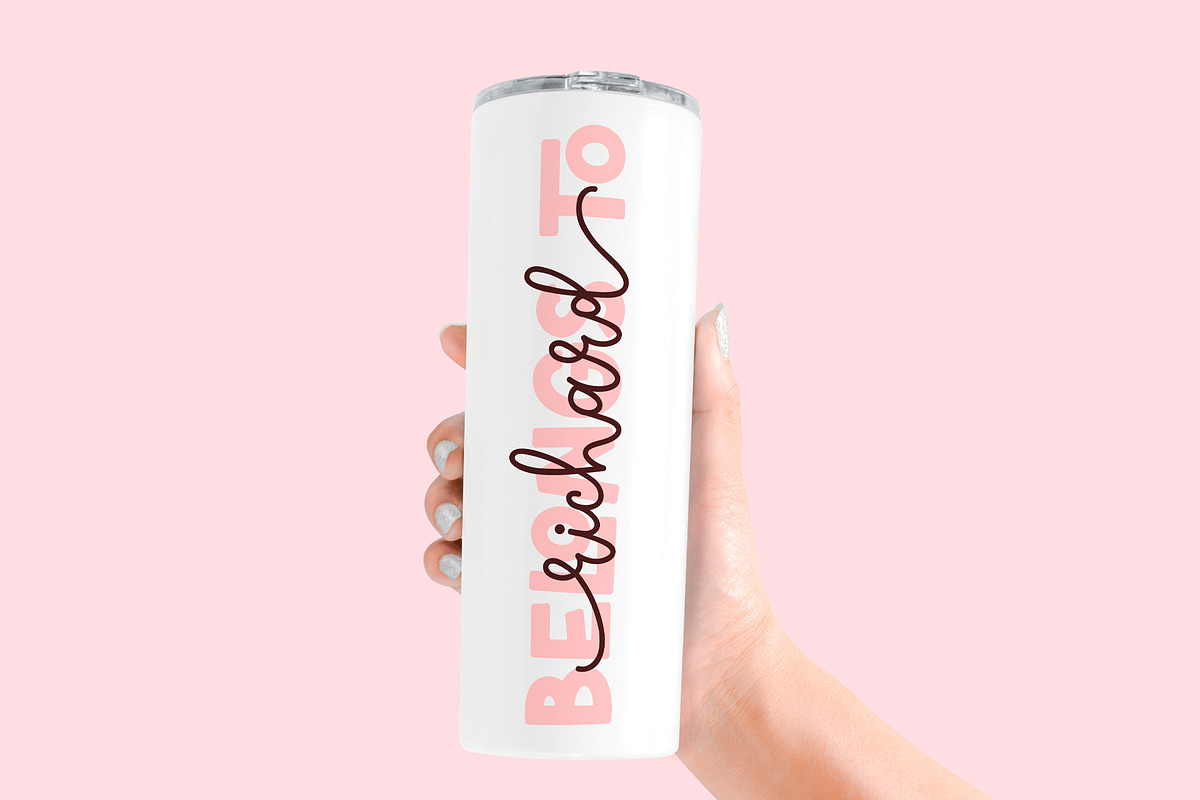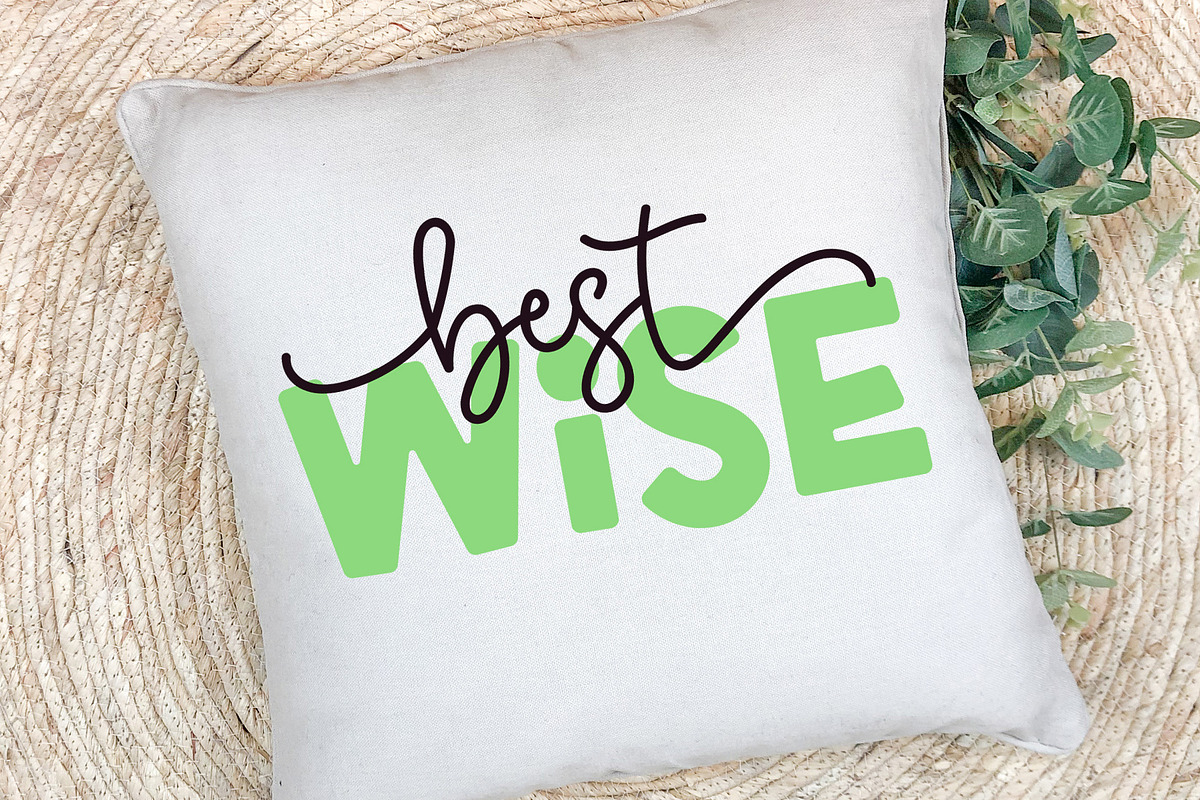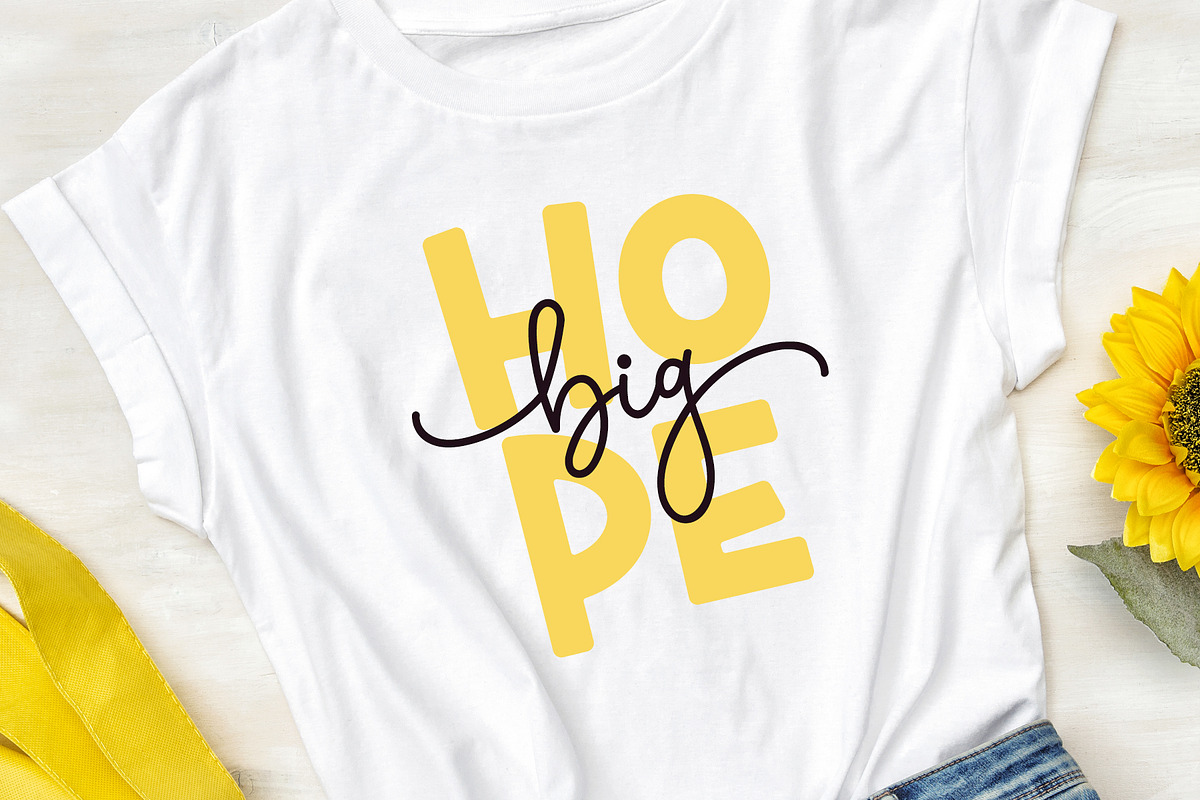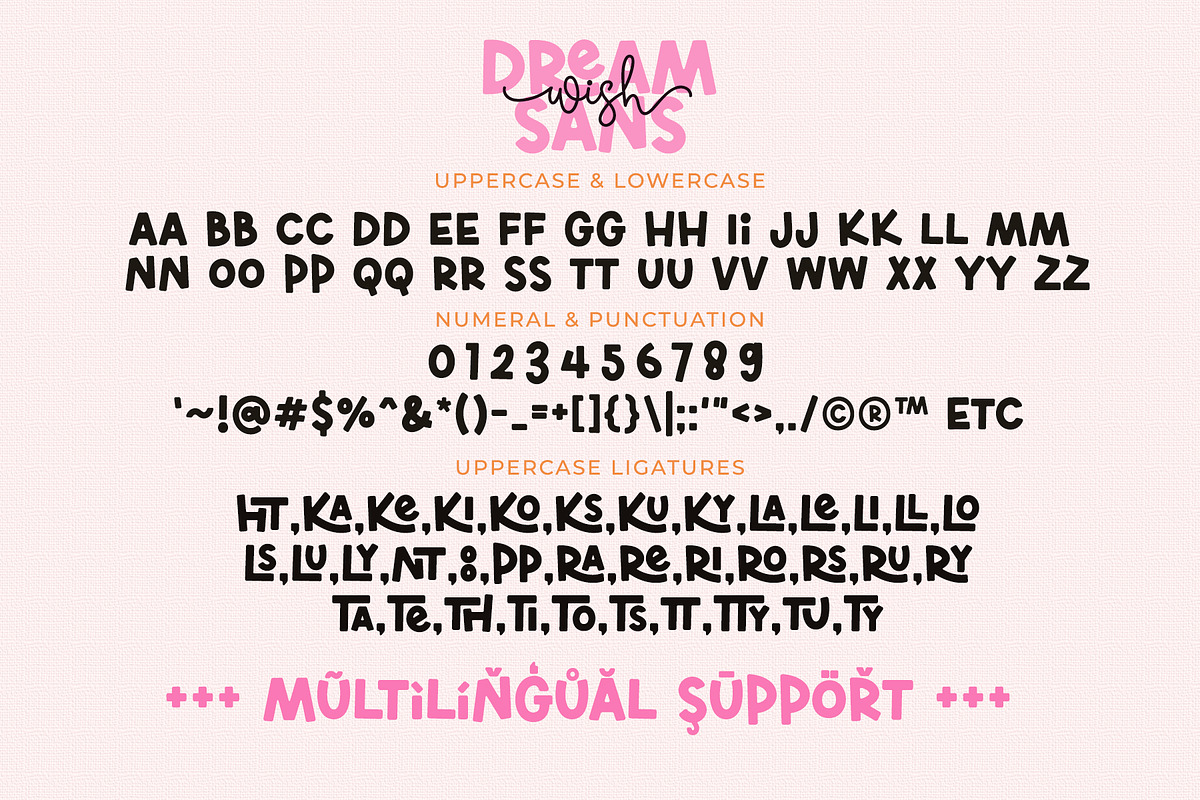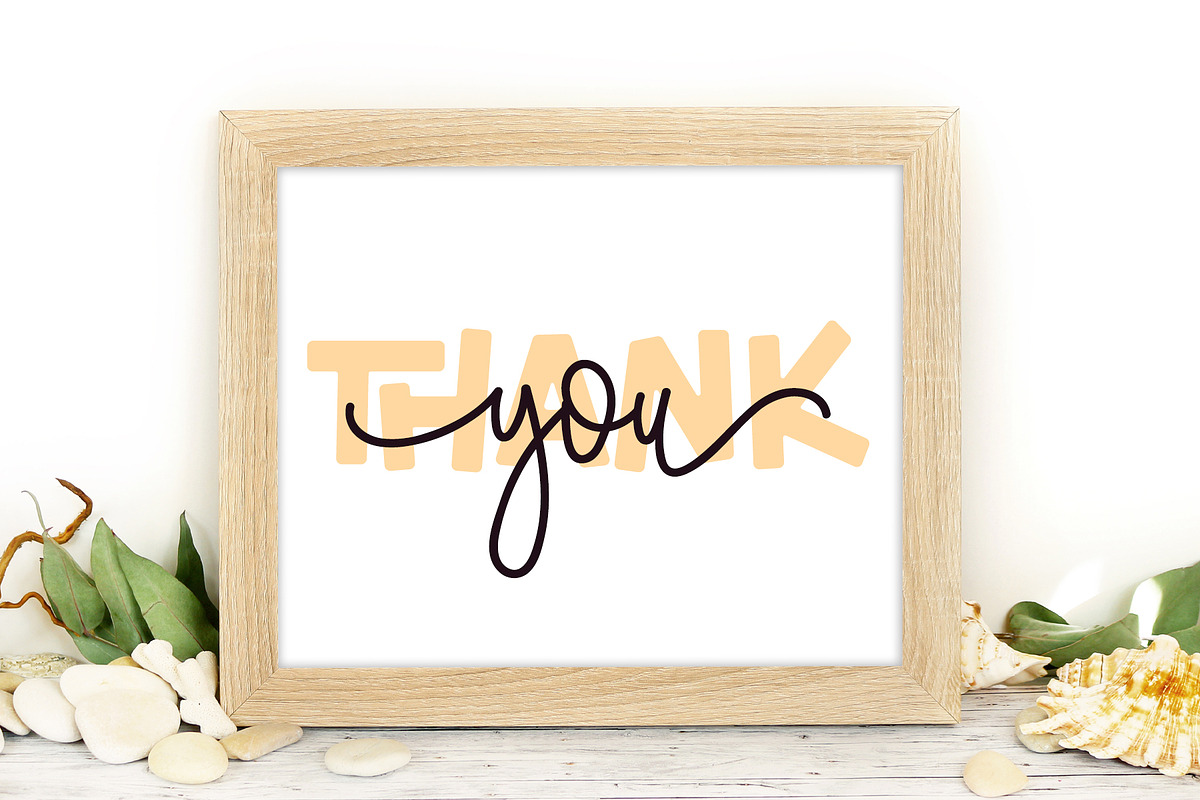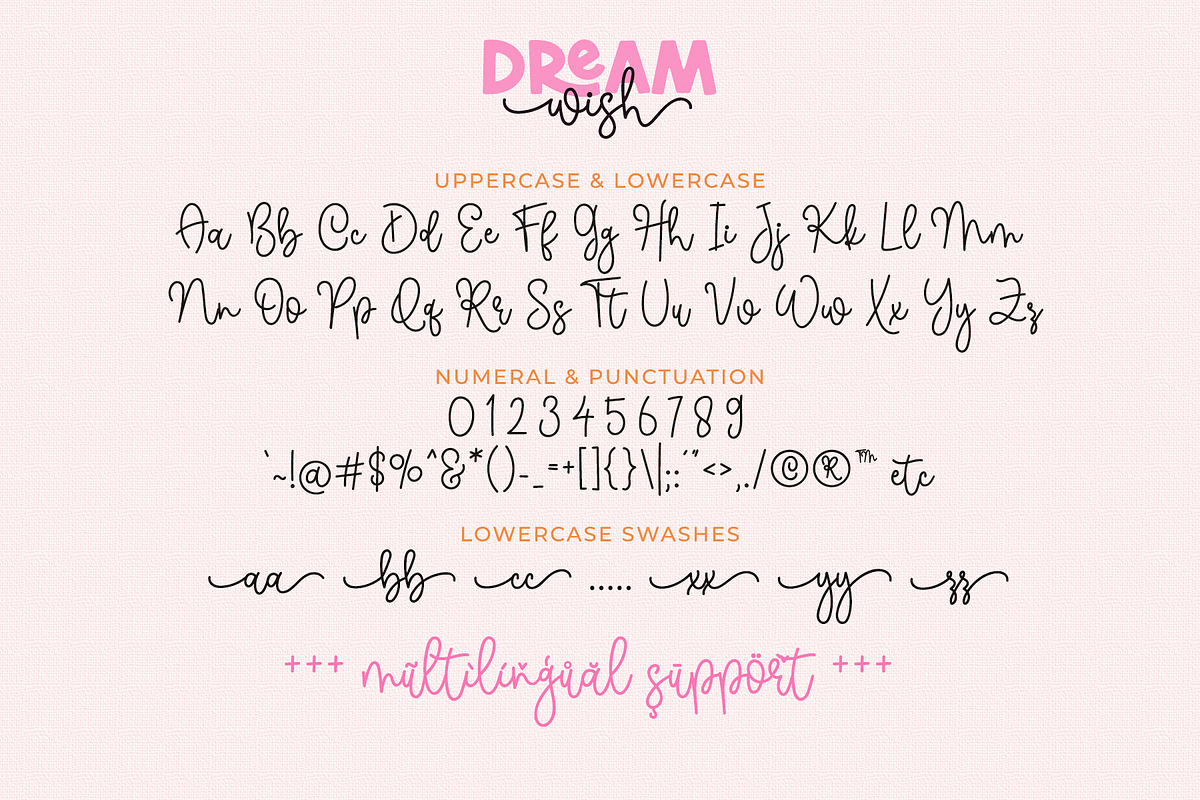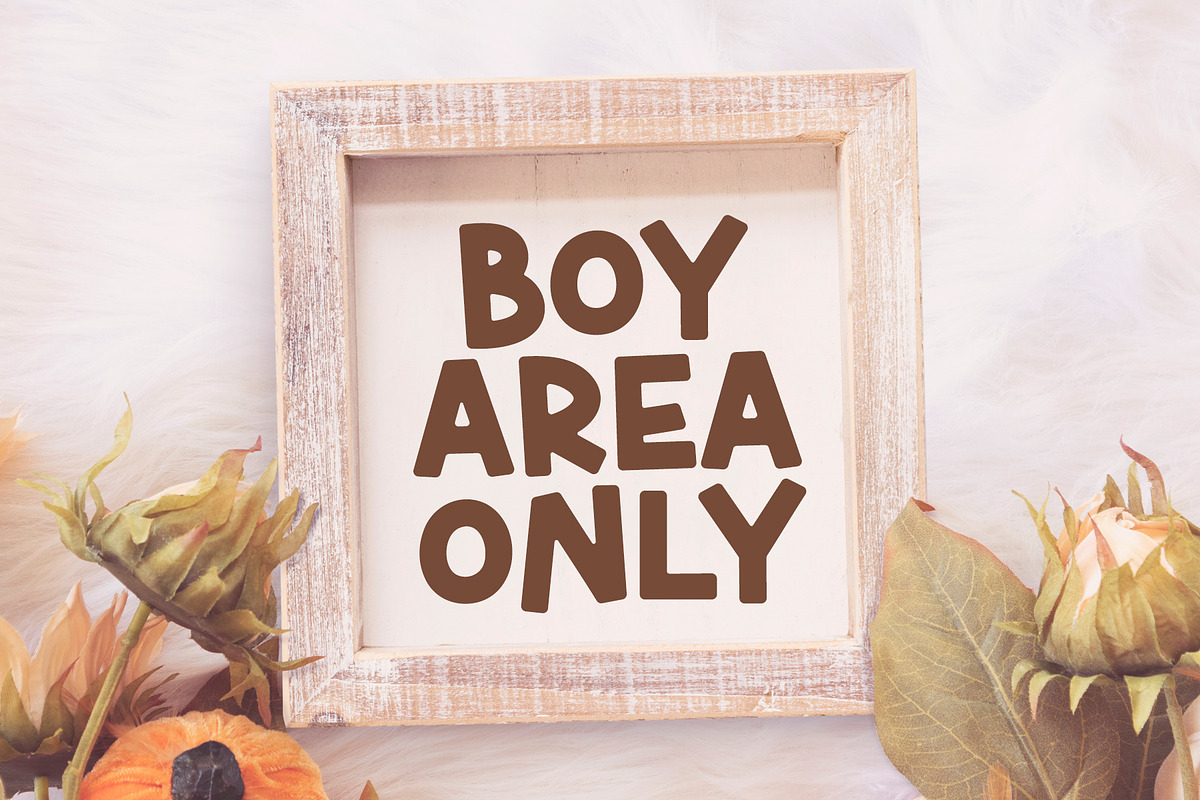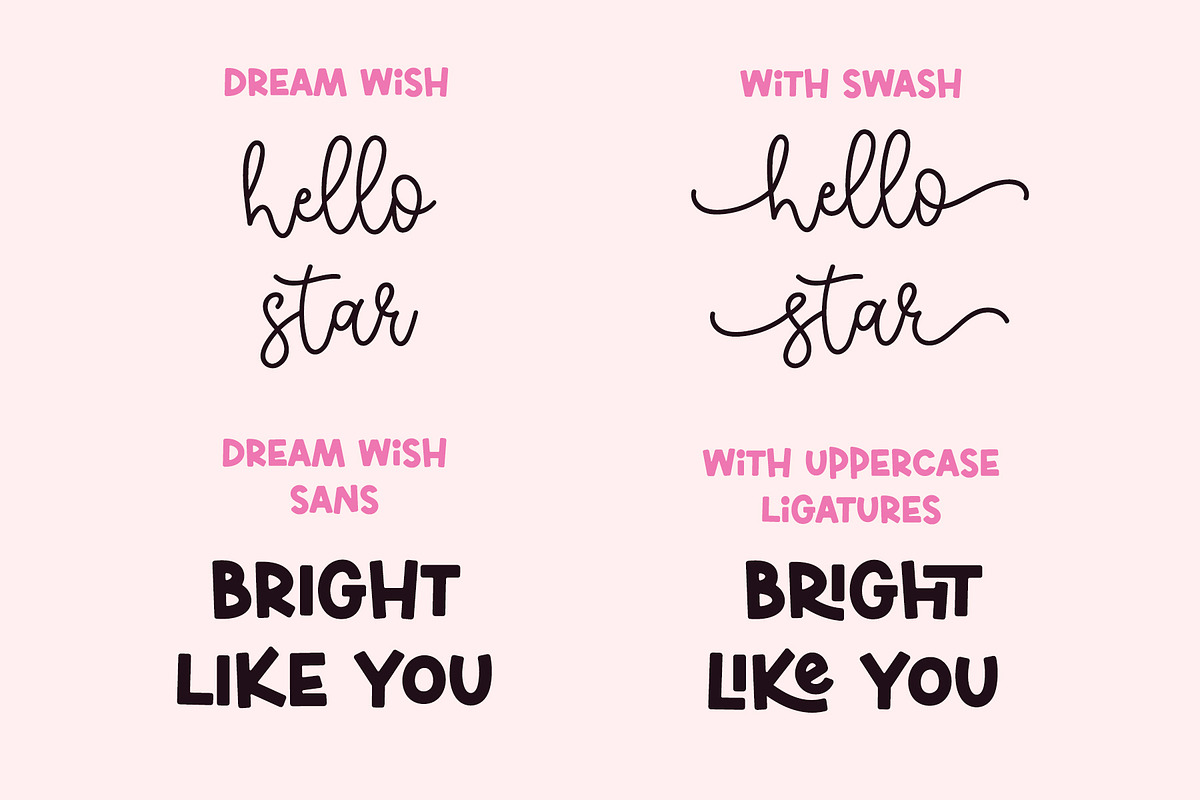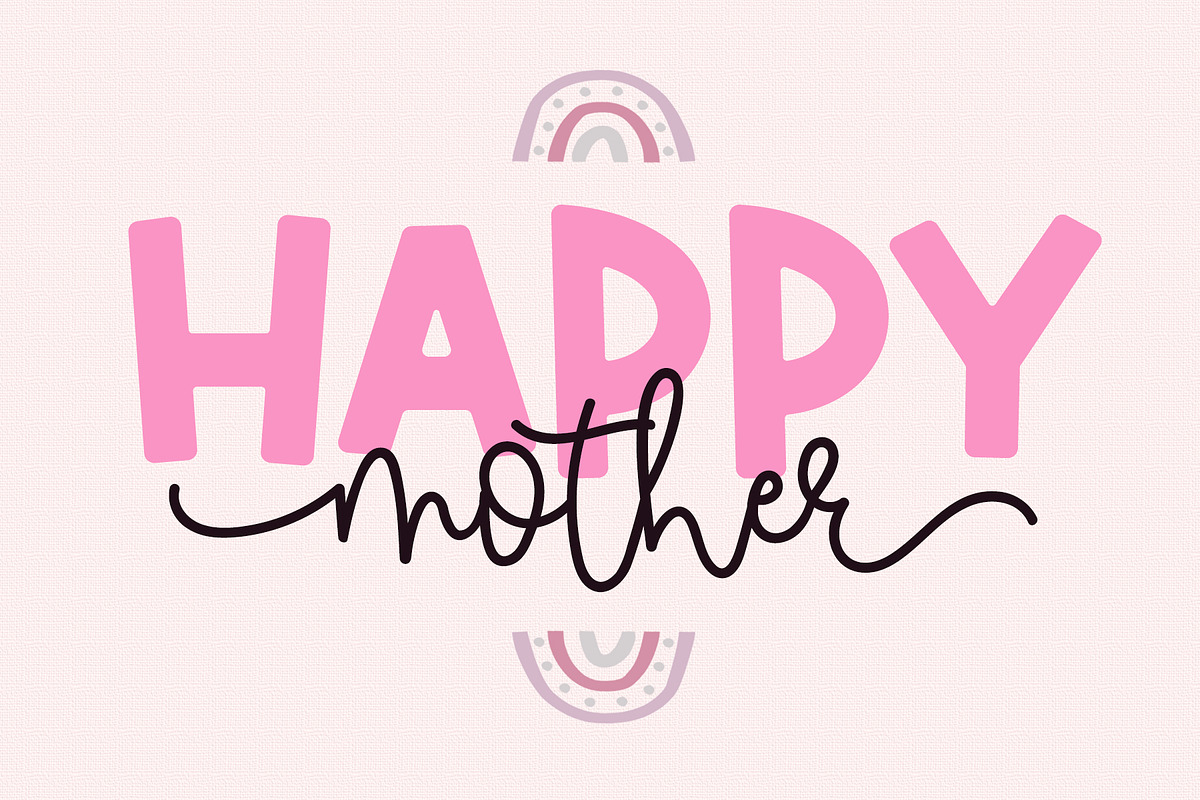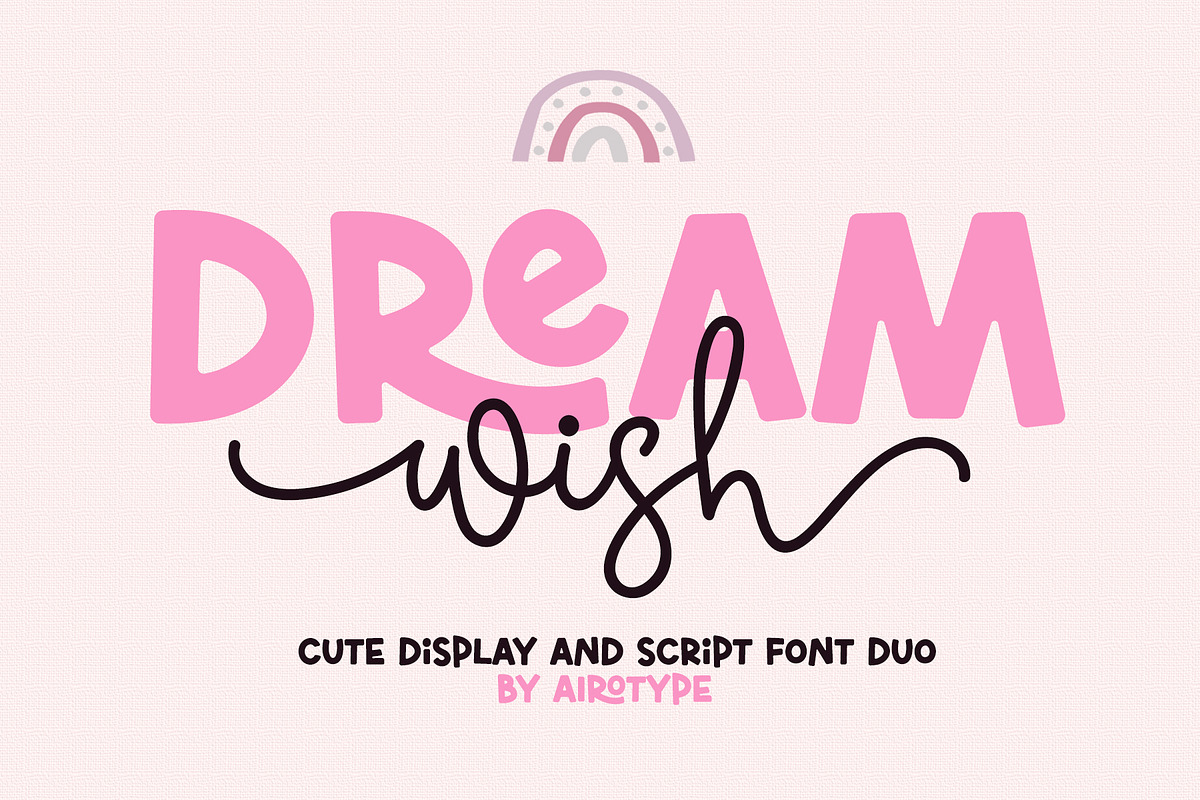
Dream Wish - Cute Handwritten Duo
Dream Wish is cute and bouncy font duo. This font is pretty, modern, and fun. It can be used together or separately.
Dream Wish duo includes monoline script font (with swash) and all caps bold font (with some ligatures).
Dream Wish is pretty font for design with cute and playful theme, such as kids, school design, holiday, birthday invitation, summer design, holiday, t-shirt design, crafting, sticker, sublimation, and many more.
- Dream Wish Script: Uppercase & Lowercase (with lowercase swash)
- Dream Wish Sans: All Caps (with some uppercase ligatures)
- Most Multilingual Accent